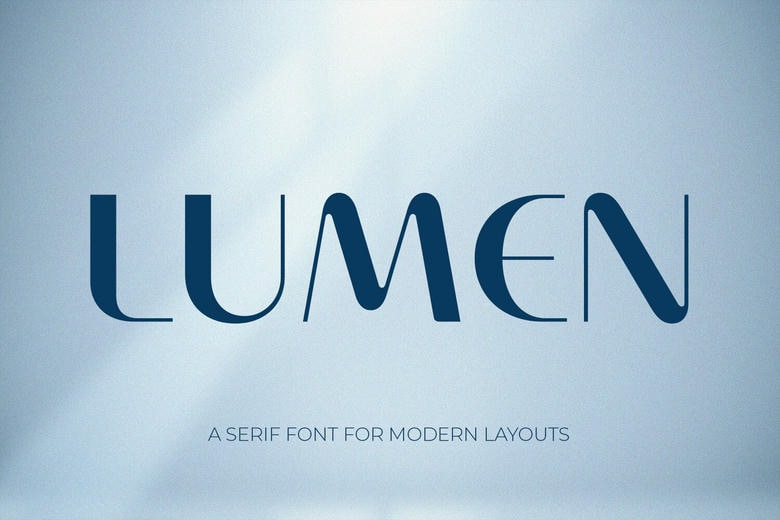
Lumen is a serif display typeface with a high level of contrast and is typified by the use of sharp terminals and uneven stroke weight. The design is centered on structural equilibrium and clear letterforms, which is very readable when used in large-scale typography.
This typeface is particularly created to be used in cosmetic bottles, makeup brand identities, labels on products in the skincare category, editorial layouts, and event invitations. The clean structure offers a clear typographic base of headlines, magazine covers, logotypes, and digital media.